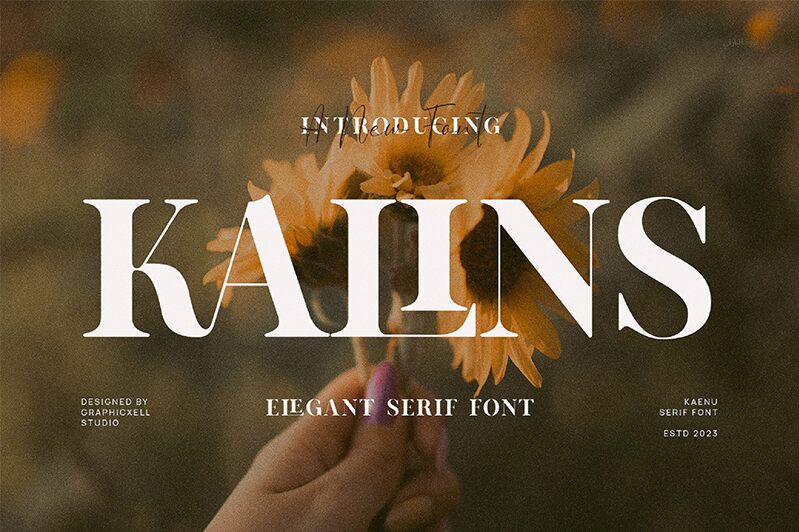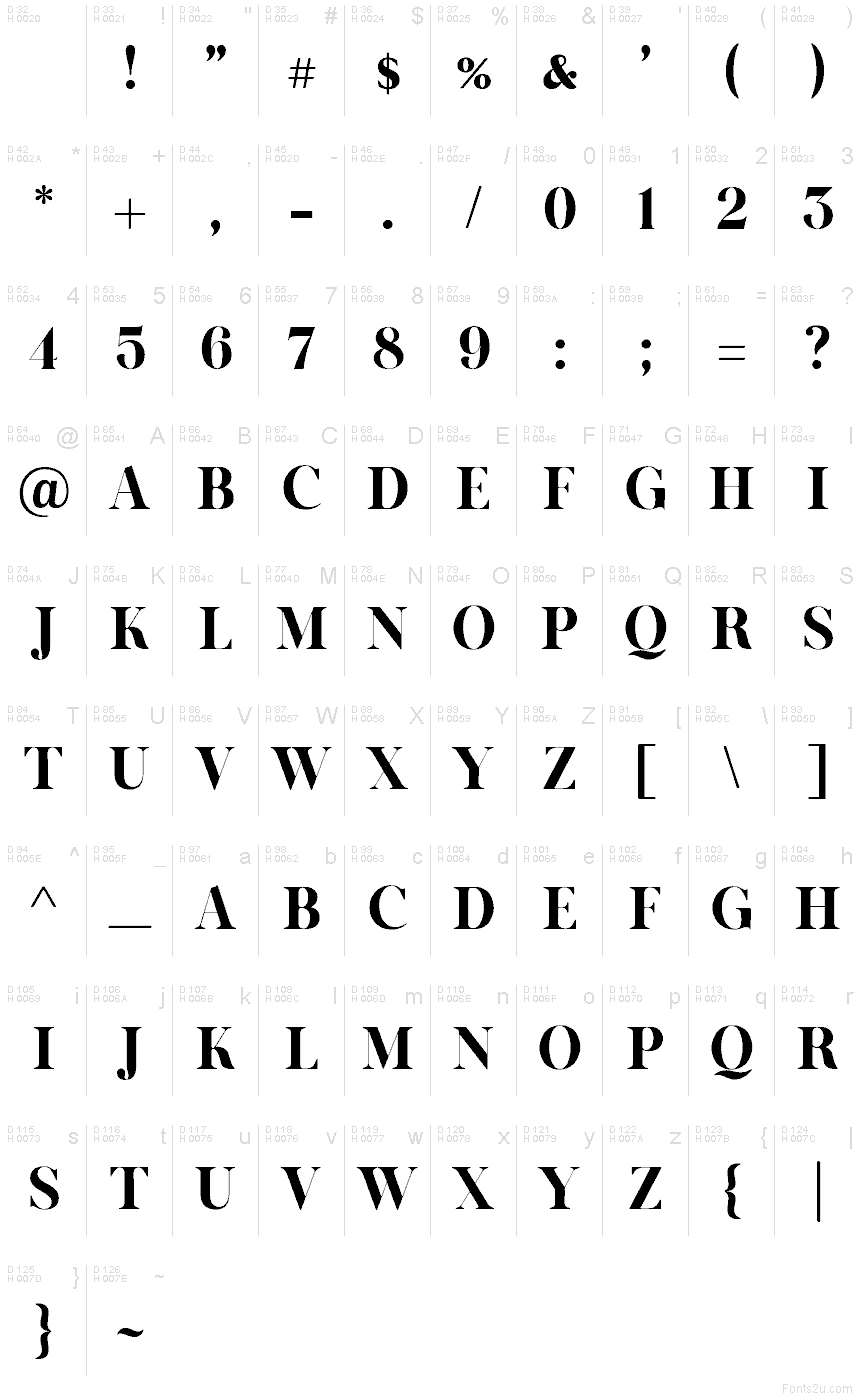
Kalins
Kalins font by Graphicxell is a free serif typeface. Its blade-like serifs, tall stance, and crisp thick-to-thin transitions give each word a carved, editorial presence. The letters feel sculpted—sharp where they need to cut through, smooth where curves carry the eye—delivering a commanding, elegant rhythm without feeling stuffy.
Using Kalins, headlines snap into focus and branding gains a luxe sheen. It shines on magazine covers, fashion lookbooks, wine or perfume labels, book titles, posters, and confident logotypes. Set it big to let those fine details breathe, and pair this free font with a quiet geometric sans for captions to keep the spotlight where it belongs.